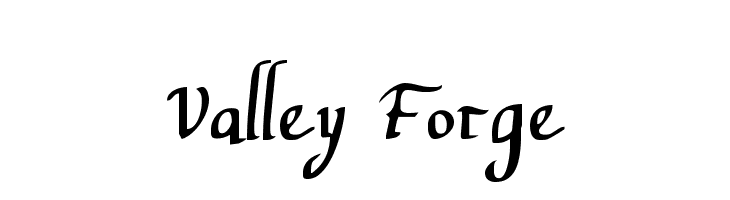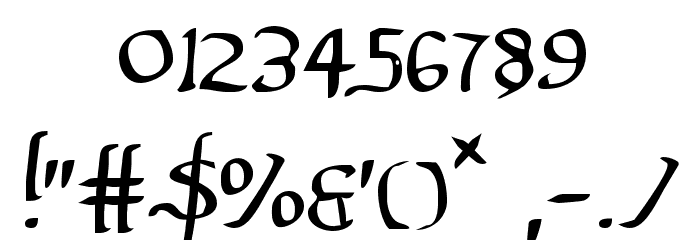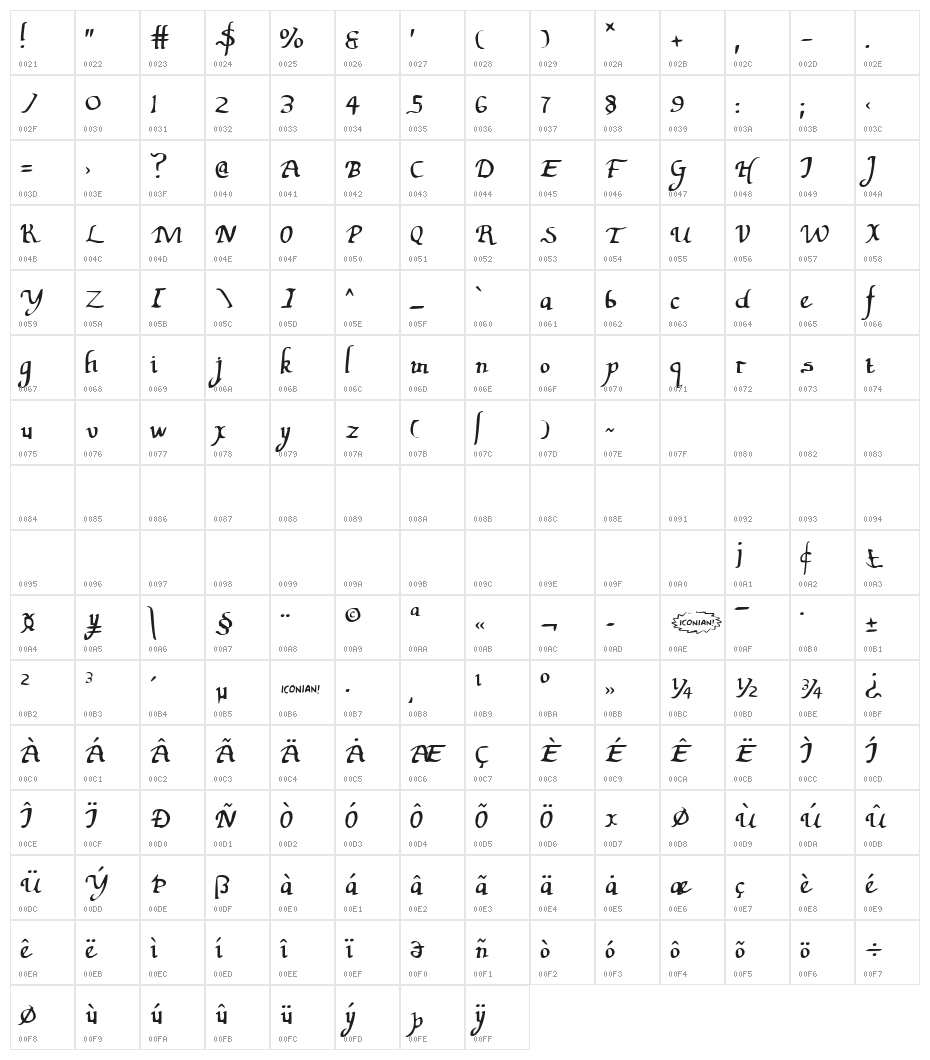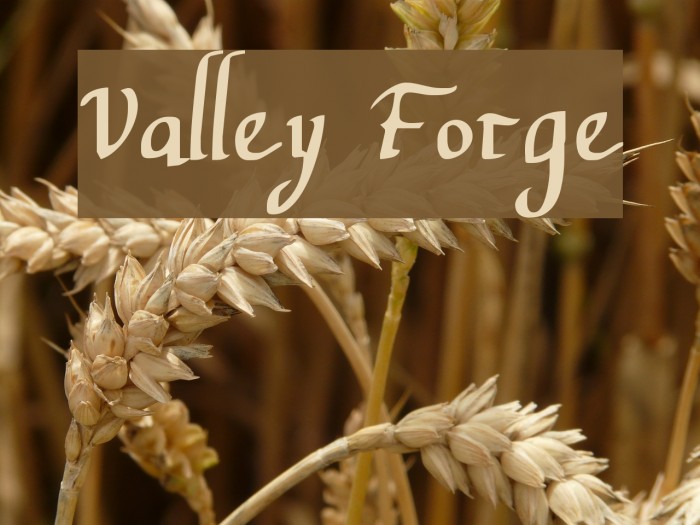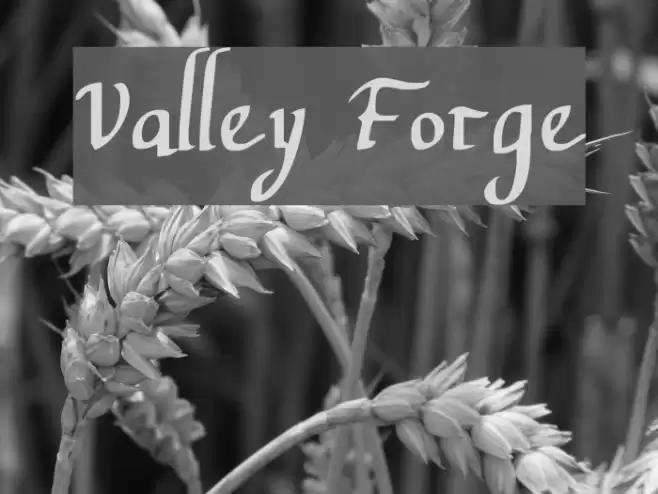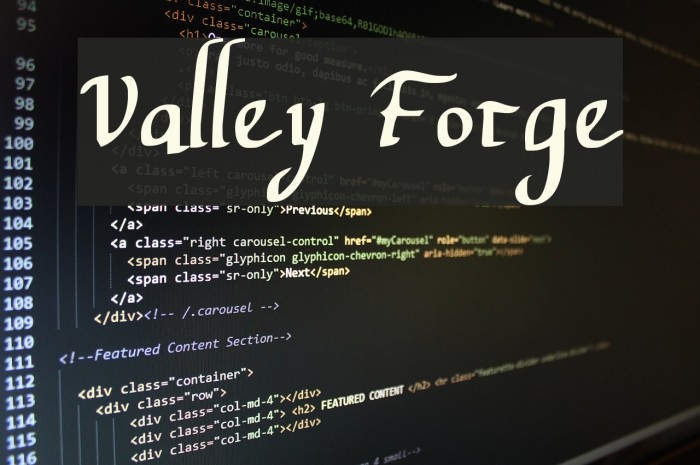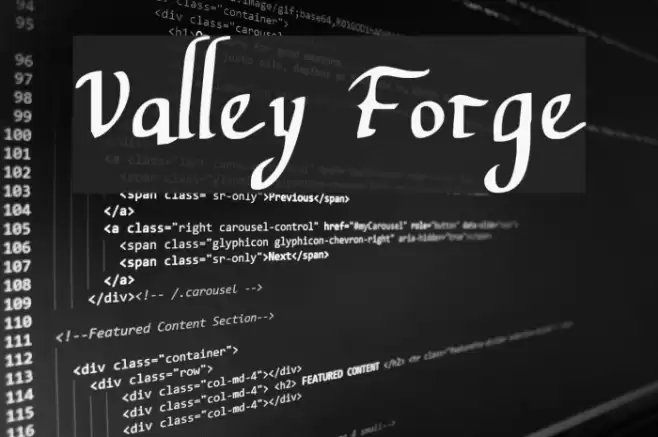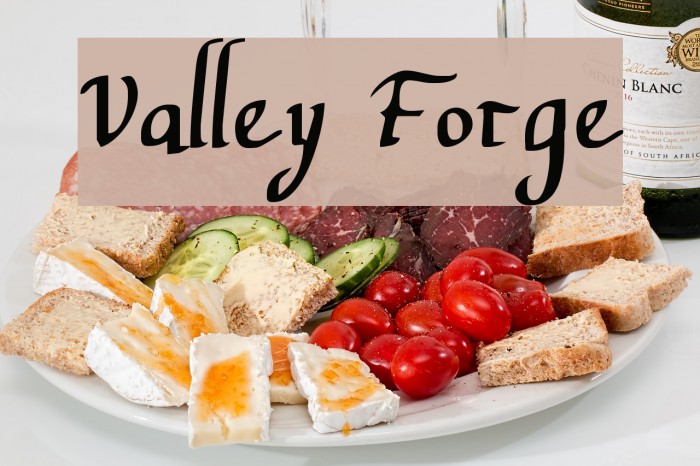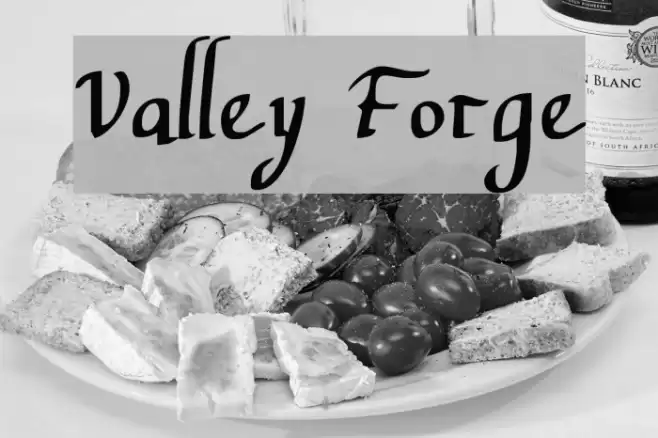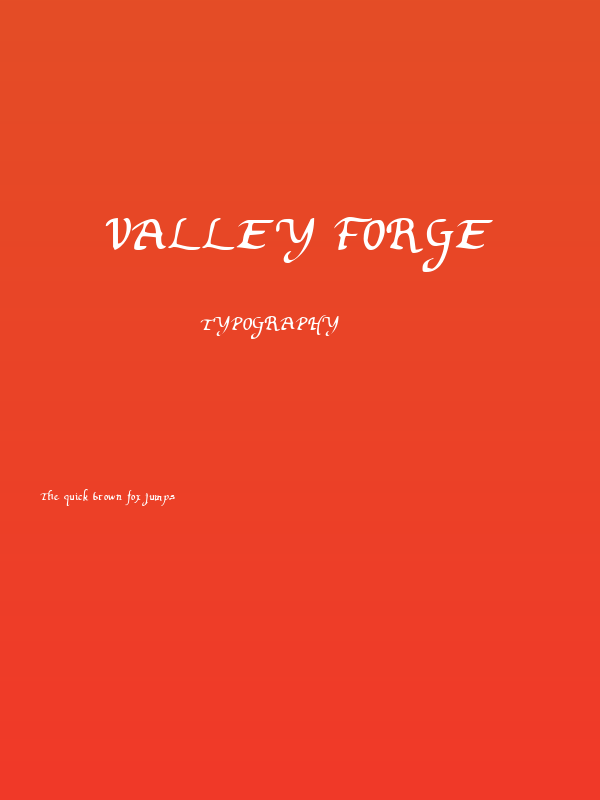
Valley Forge Font
Valley Forge Description
This font features a dynamic and flowing script style, characterized by its elegant and slightly whimsical curves. The uppercase letters exhibit a sense of movement with their sweeping lines and varied stroke widths, while the lowercase letters maintain a cohesive and harmonious appearance. The numerals are distinct and maintain the same artistic flair, ensuring readability while adding a touch of sophistication. Special characters are thoughtfully designed to complement the overall aesthetic, making this font versatile for various applications. The overall design is reminiscent of calligraphic styles, blending traditional elegance with a modern twist.